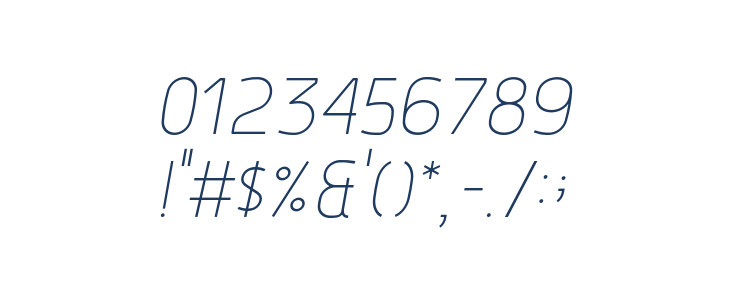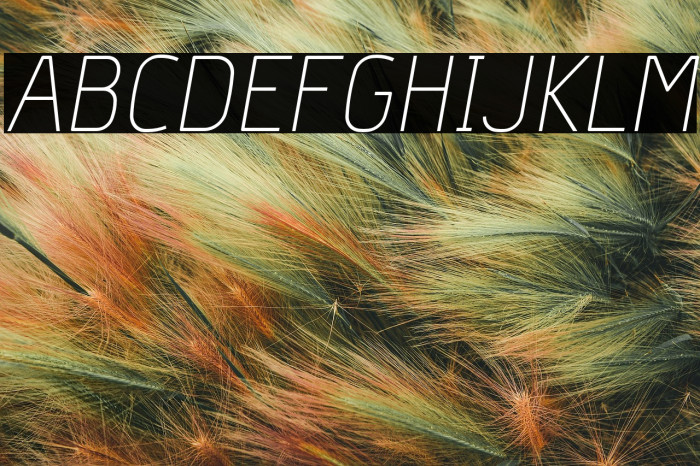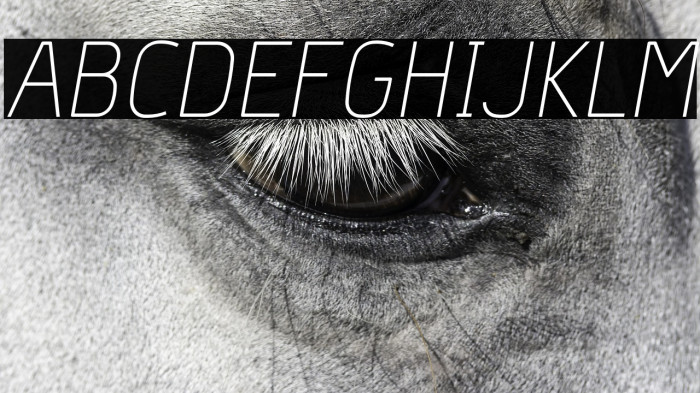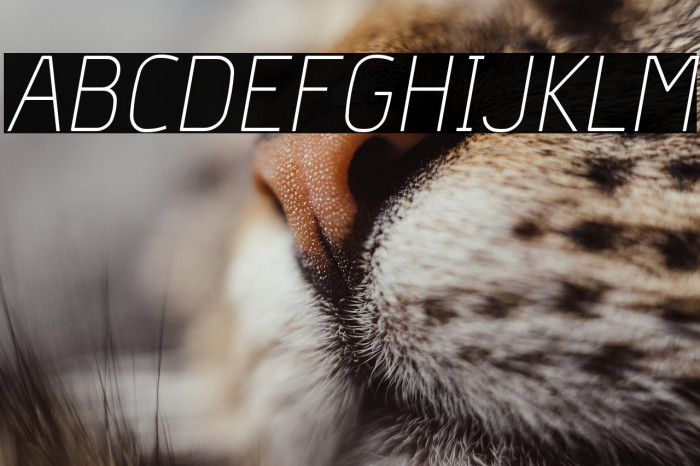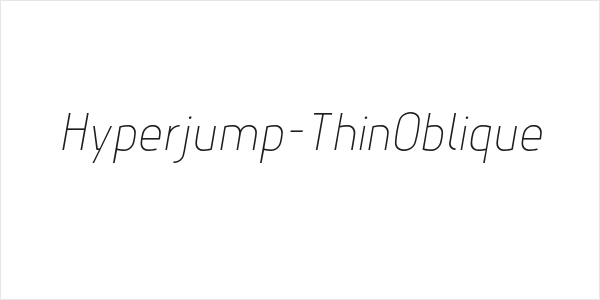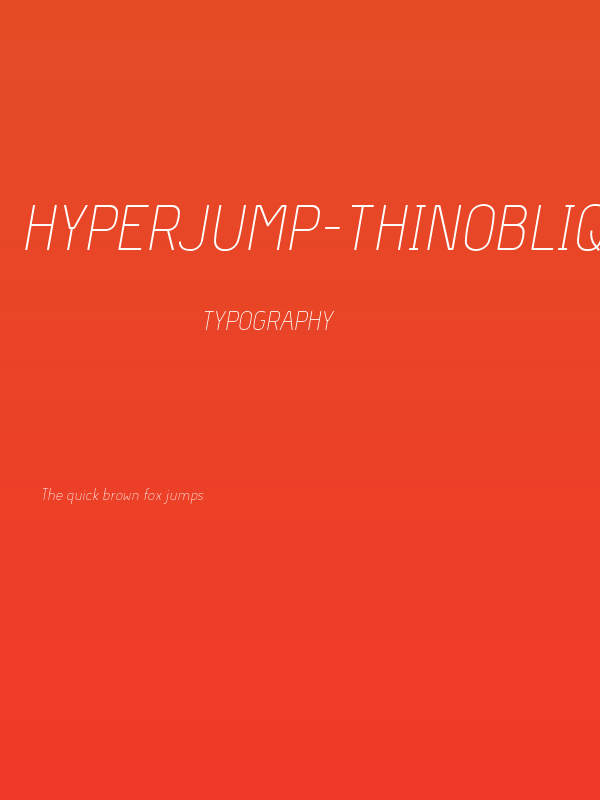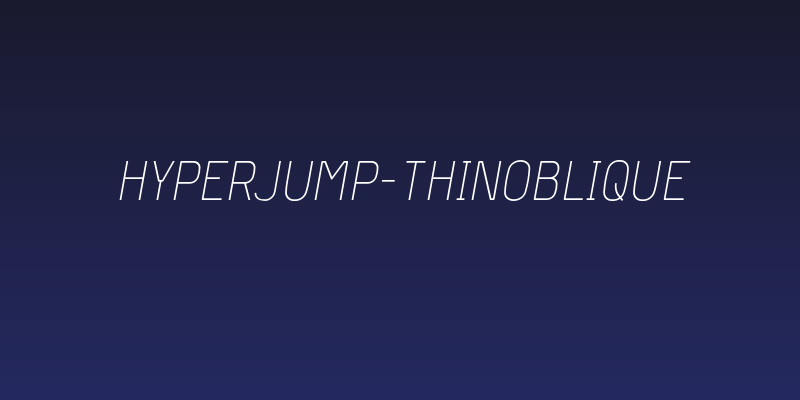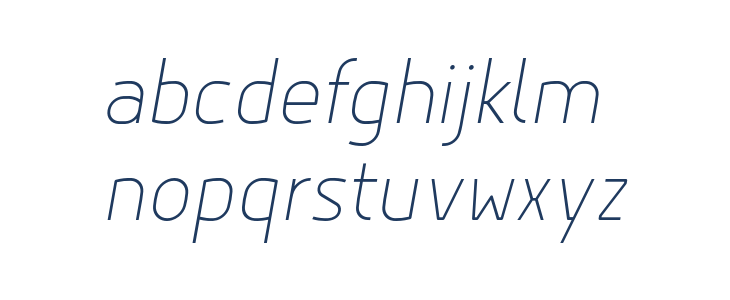
Hyperjump-ThinOblique Font
Hyperjump-ThinOblique Description
This font features a sleek and modern design with a thin, oblique style. The characters are elegantly slanted, giving a sense of motion and dynamism. The uppercase and lowercase letters are consistent in their slender form, while the numerals maintain a uniform appearance. Special characters are seamlessly integrated, enhancing the font's versatility. The overall aesthetic is clean and minimalistic, making it suitable for contemporary design projects.
| Use Case | Headlines, Logos, Display text |
| Proposed Projects | Ideal for modern branding, tech-related designs, sleek product packaging, and innovative advertising campaigns. |